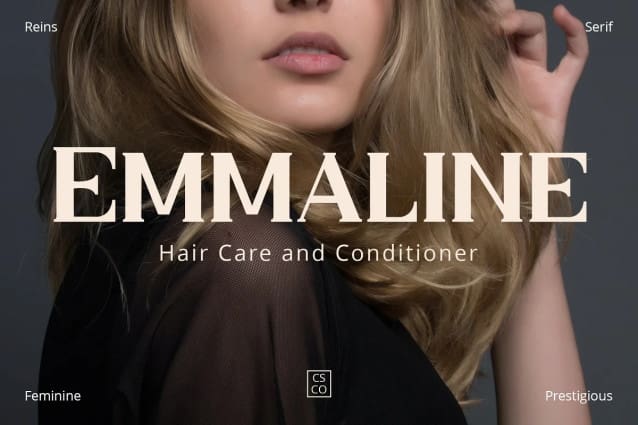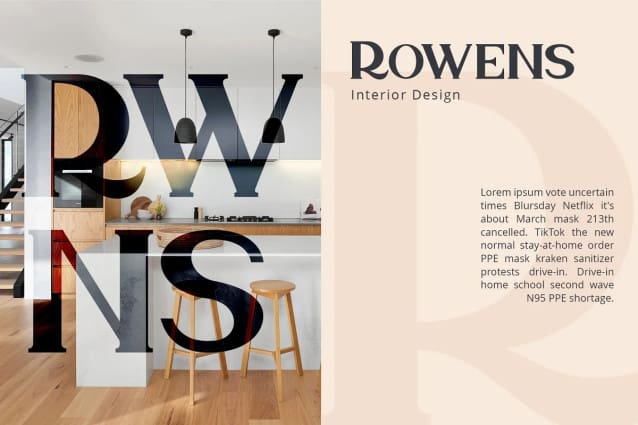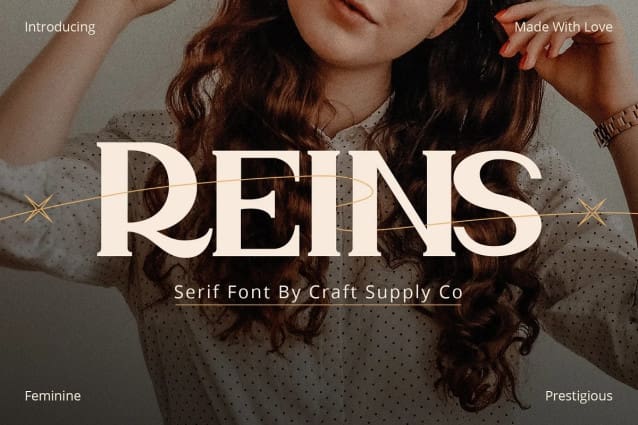
Reins Font
Reins Font – Serif Typeface, a masterpiece that exudes classic elegance with a modern twist. Initially, it captivates with its timeless appearance and style.
Versatility at its Best Moreover, it’s incredibly versatile, adapting seamlessly to a multitude of projects. From logos to editorial designs, it enhances every artwork it graces. Furthermore, it brings out the richness in your content, making each word profoundly striking.
Classic Appeal This typeface carries a classic appeal, gracefully bridging the past and the present. Coupled with a sense of nostalgia, it remains relevant and attractive for contemporary designs. Therefore, each character stands out, adding a touch of historical elegance.
Perfect for Various Uses Besides, Reins Font is perfect for a wide range of applications. Use it for headers, body text, or any place that requires a touch of class. Hence, making your projects look refined and professionally crafted.
Ease of Use Additionally, it’s user-friendly, ensuring that every designer, beginner or expert, can utilize its full potential effortlessly. Consequently, it doesn’t only look good; it makes your design process smoother.
Conclusion In conclusion, choosing Reins Font – Serif Typeface means investing in a font that is classic, versatile, and impeccably designed. Thus, it’s the key to unlocking extraordinary design possibilities.